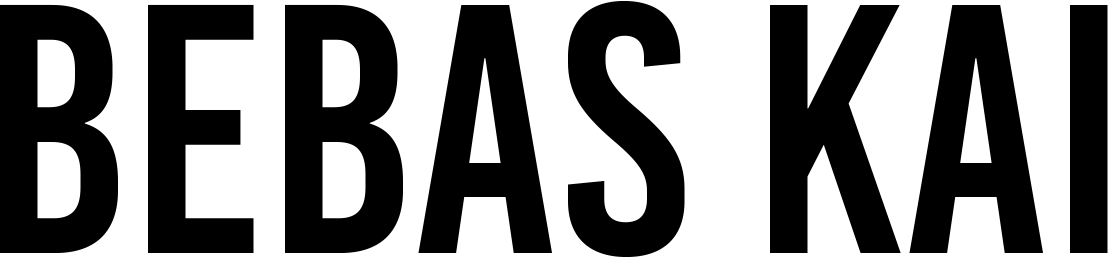
Bebas Kai Font
For when you need to go to the point and yet attract attention, you can count on Bebas Kai. This sans serif font is perfect for business cards, flyers, books, and any situation you consider. Don’t hesitate and try it out to experience a superb outcome. Want more? Head over to our website.